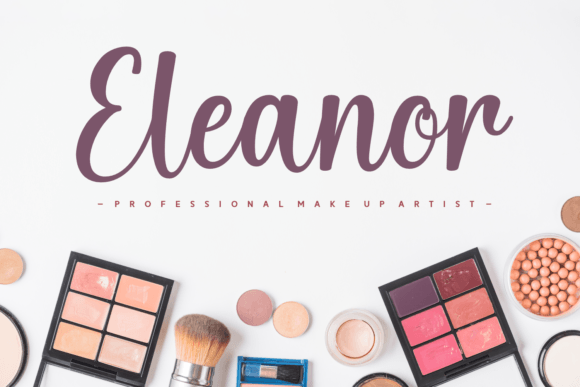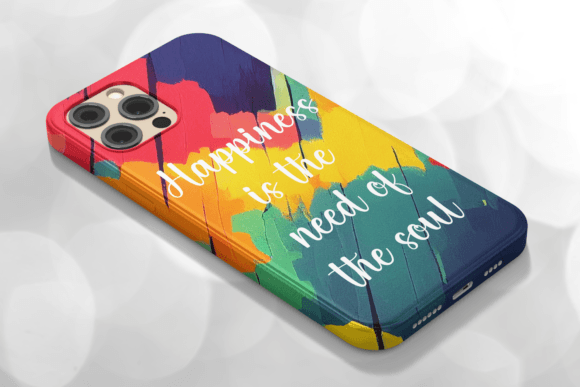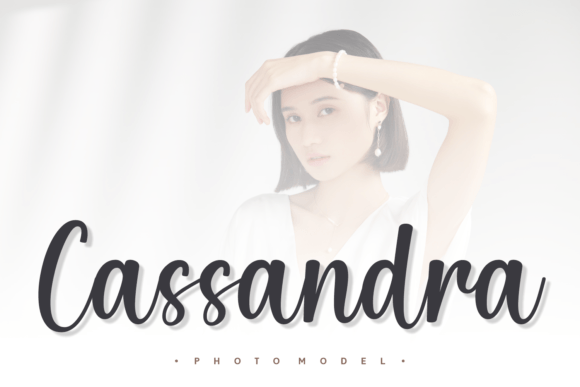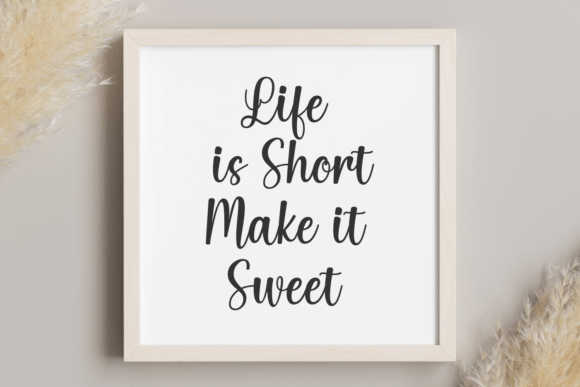
Discover the Elegance of Das Font: A Modern Script Font for Sophisticated Designs
In the world of typography, a font can make or break the aesthetic of a design. For designers and crafters looking for a modern script font that embodies minimalism and sophistication, Das Font is an excellent choice. This simple yet elegant font is perfect for modern branding, product packaging, and other contemporary designs that require a clean and sleek aesthetic.
The Essence of Minimalism and Sophistication
Das Font is the epitome of minimalism and sophistication. Its clean lines and minimalistic design evoke a sense of simplicity and elegance, making it perfect for designers who want to create a lasting impression. The font’s sleek aesthetic is ideal for modern branding, as it conveys a sense of professionalism and sophistication. Whether you’re designing a logo, packaging, or marketing materials, Das Font is sure to elevate your design to the next level.
One of the standout features of Das Font is its PUA (Private Use Area) encoding. This means that you can access all the delightful glyphs and swashes effortlessly, making it easy to create beautiful and unique designs. With PUA encoding, you can easily insert special characters, ligatures, and swashes into your design, giving you more creative freedom and flexibility.
Perfect for Modern Branding and Design
Das Font is perfect for modern branding and design projects that require a clean and sleek aesthetic. Its modern script style is ideal for:
• Logo design: Create a lasting impression with a custom logo that exudes professionalism and sophistication.
• Product packaging: Elevate your product packaging with a clean and modern design that stands out on store shelves.
• Marketing materials: Create eye-catching marketing materials, such as brochures, flyers, and posters, that showcase your brand’s personality.
• Web design: Use Das Font to create a cohesive and modern look for your website, making it perfect for businesses and individuals who want to establish a strong online presence.
Why Choose Das Font?
There are many reasons why designers and crafters should choose Das Font for their next project. Here are a few:
• Unique and modern design: Das Font’s clean lines and minimalistic design make it stand out from traditional script fonts.
• Ease of use: With PUA encoding, you can easily access all the glyphs and swashes, making it easy to create beautiful designs.
• Versatility: Das Font is perfect for a wide range of design projects, from branding and packaging to marketing materials and web design.
• Sophisticated aesthetic: Das Font’s sleek and modern design conveys a sense of professionalism and sophistication, making it perfect for businesses and individuals who want to establish a strong brand identity.
In conclusion, Das Font is a modern script font that embodies minimalism and sophistication. Its clean lines, minimalistic design, and PUA encoding make it perfect for designers and crafters who want to create beautiful and unique designs. Whether you’re working on a branding project, product packaging, or marketing materials, Das Font is an excellent choice. With its sleek aesthetic and ease of use, Das Font is sure to elevate your design to the next level.